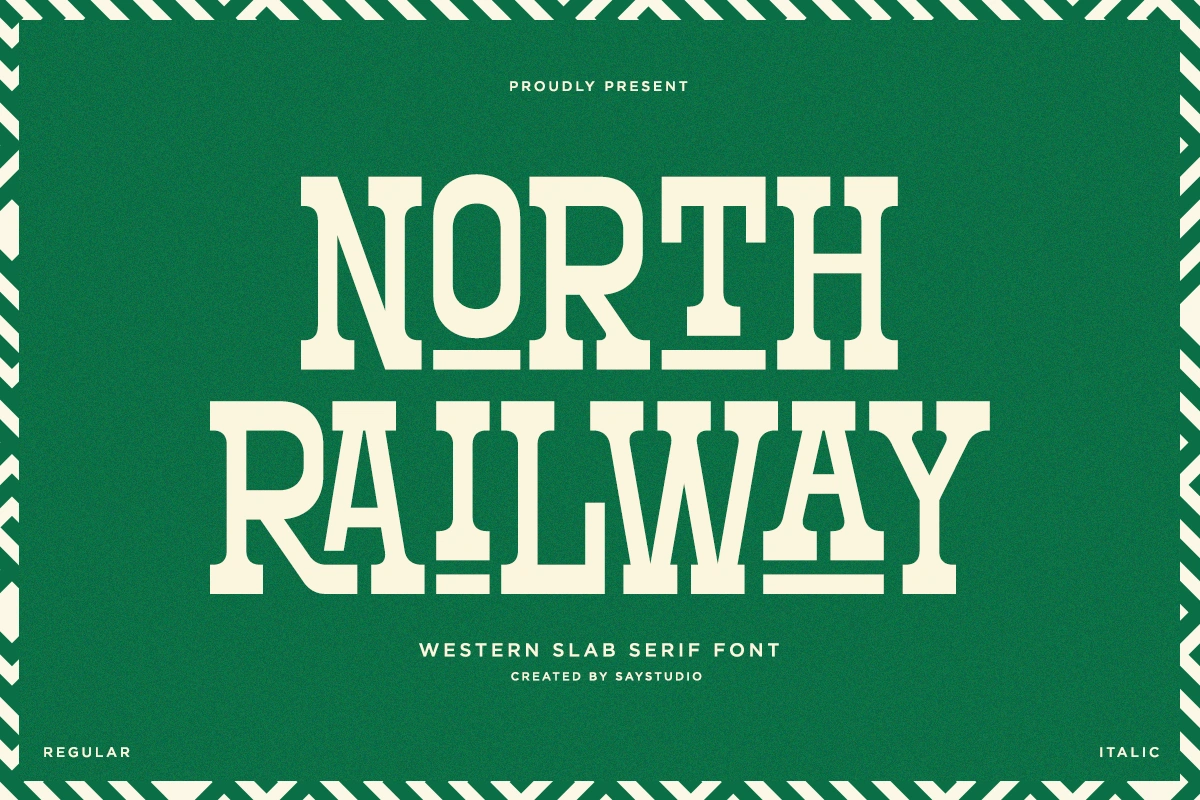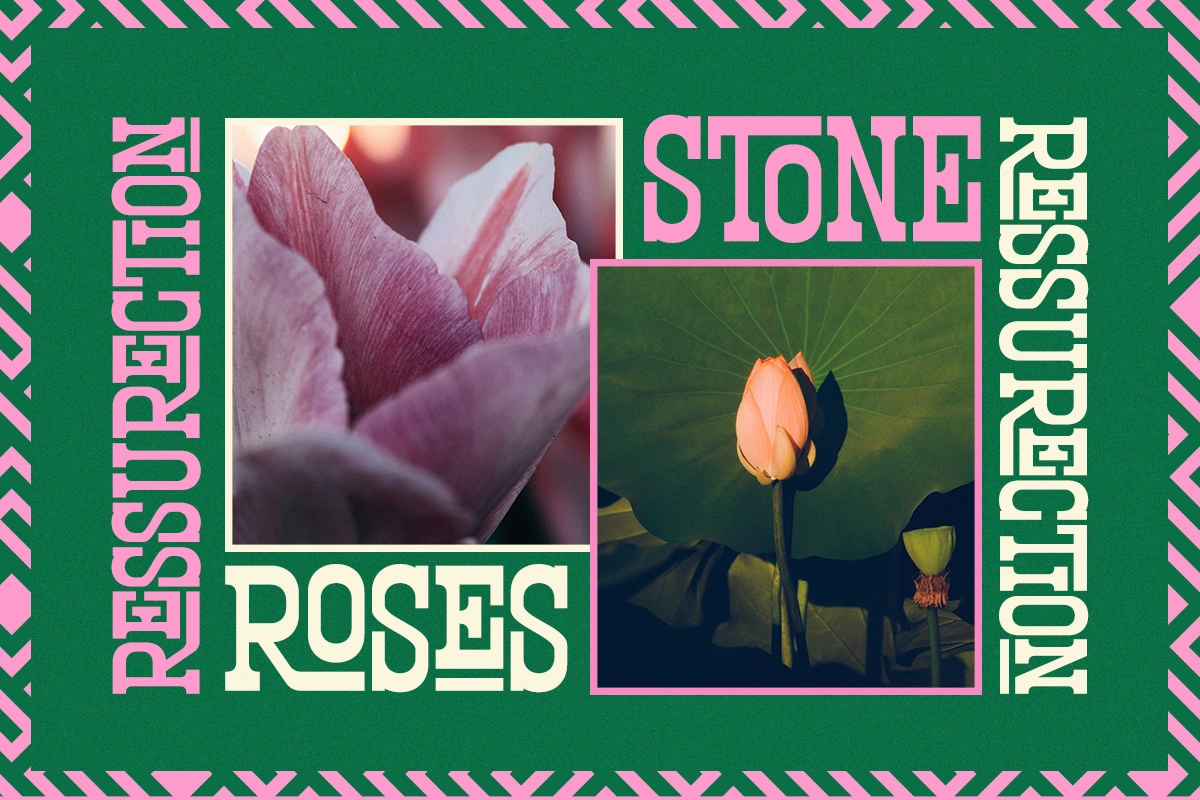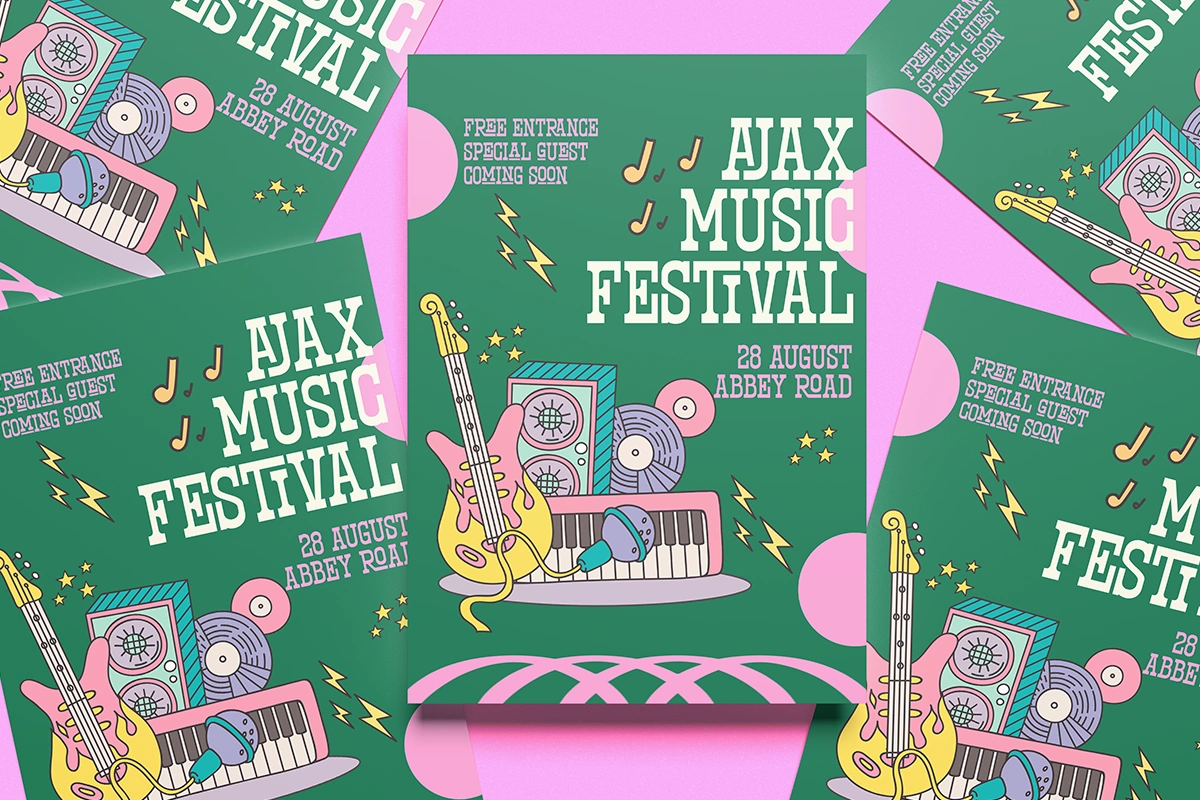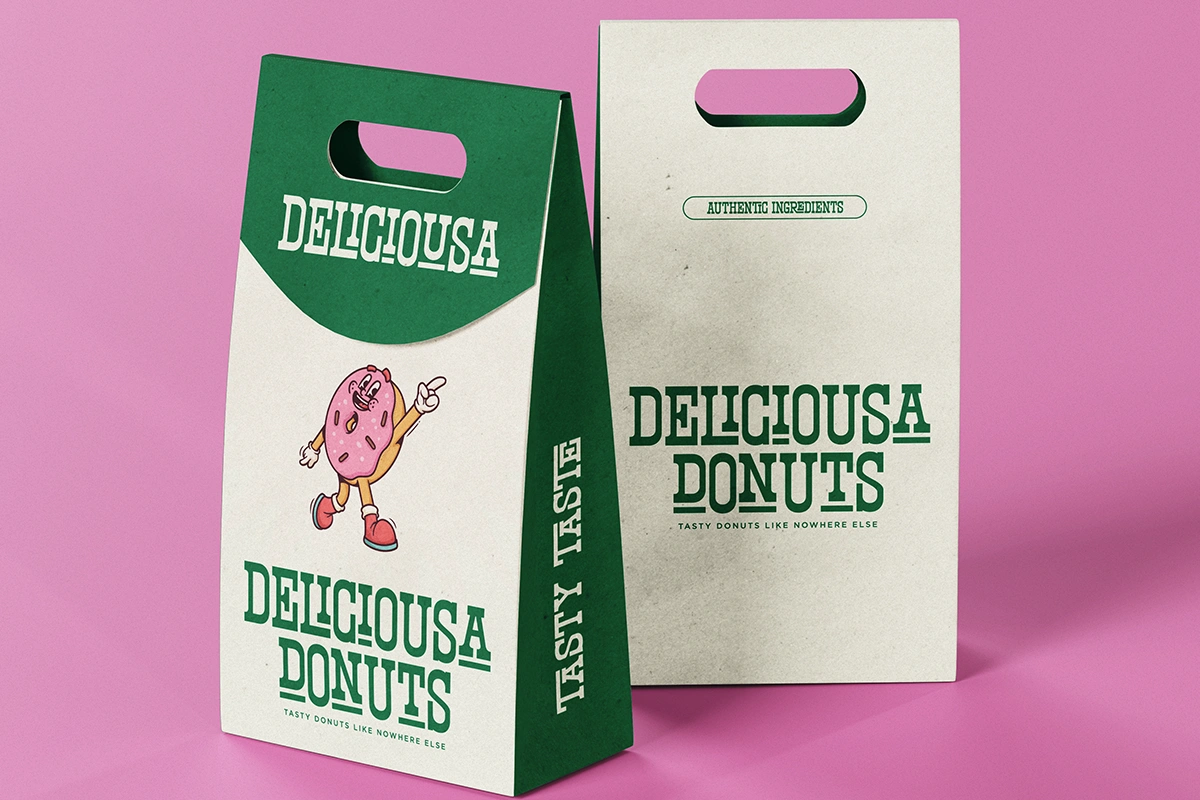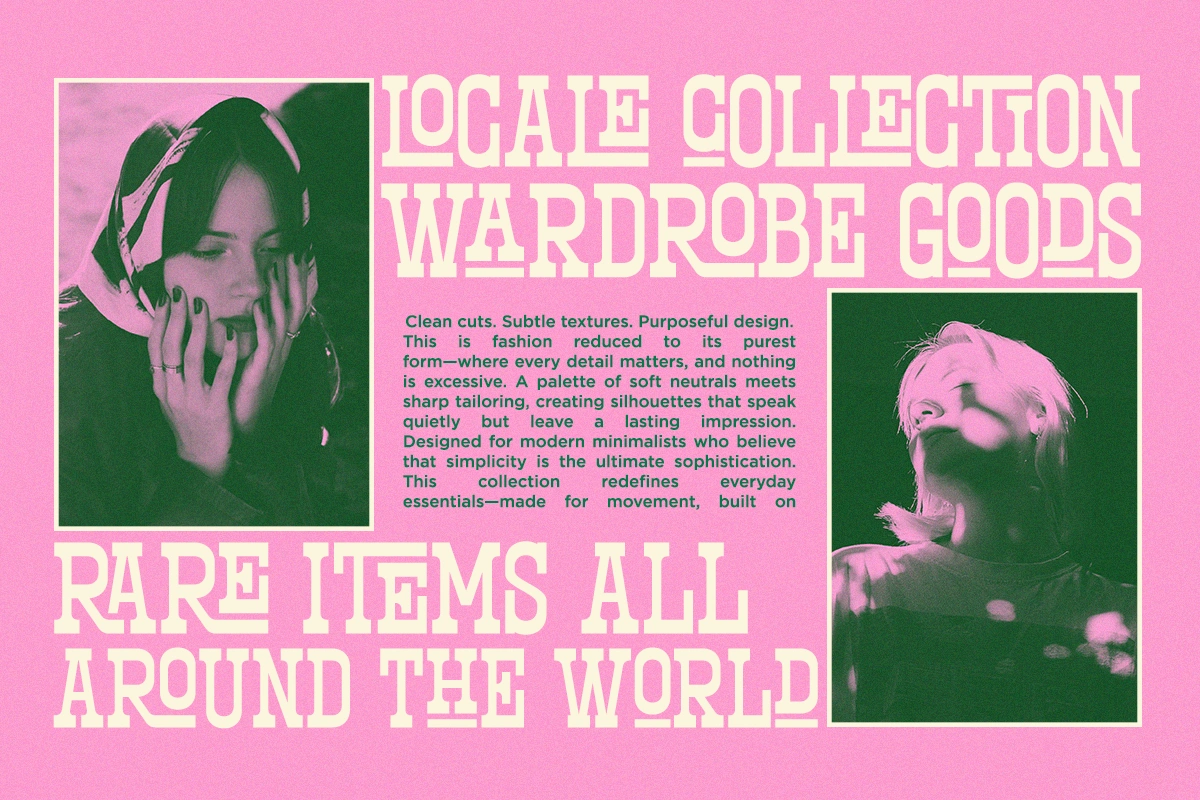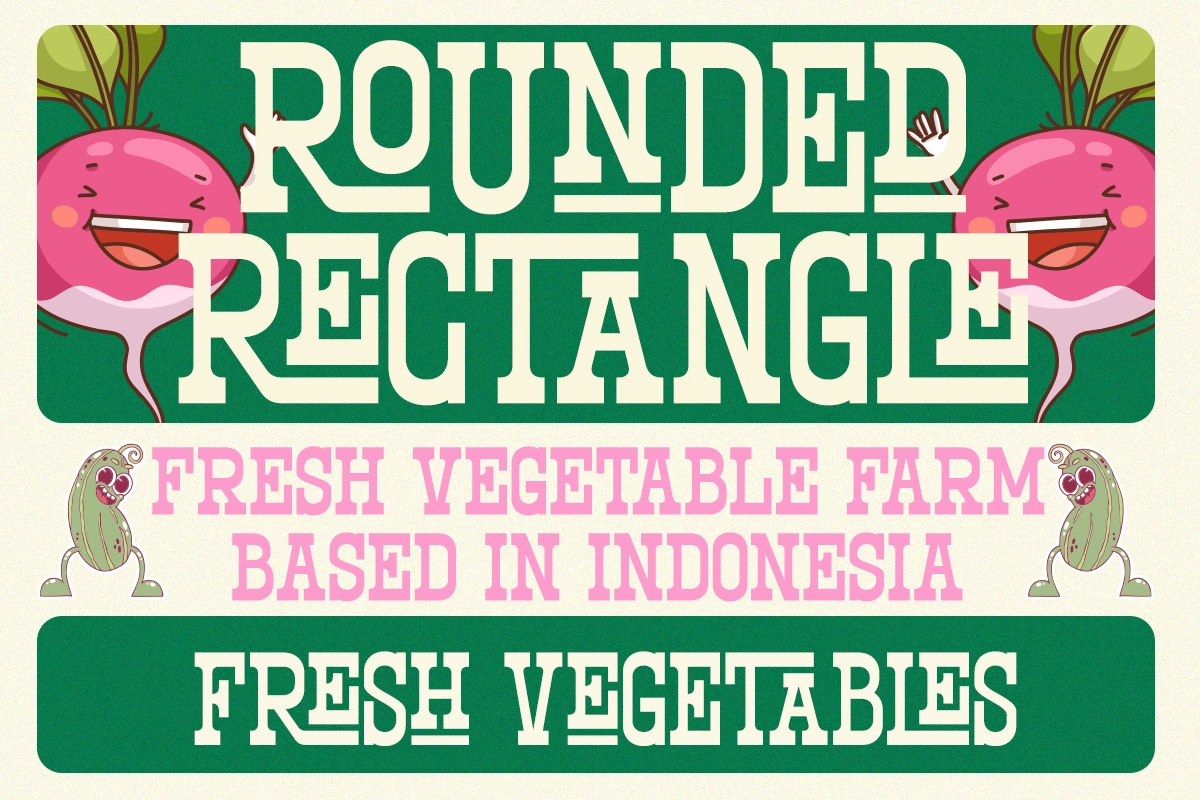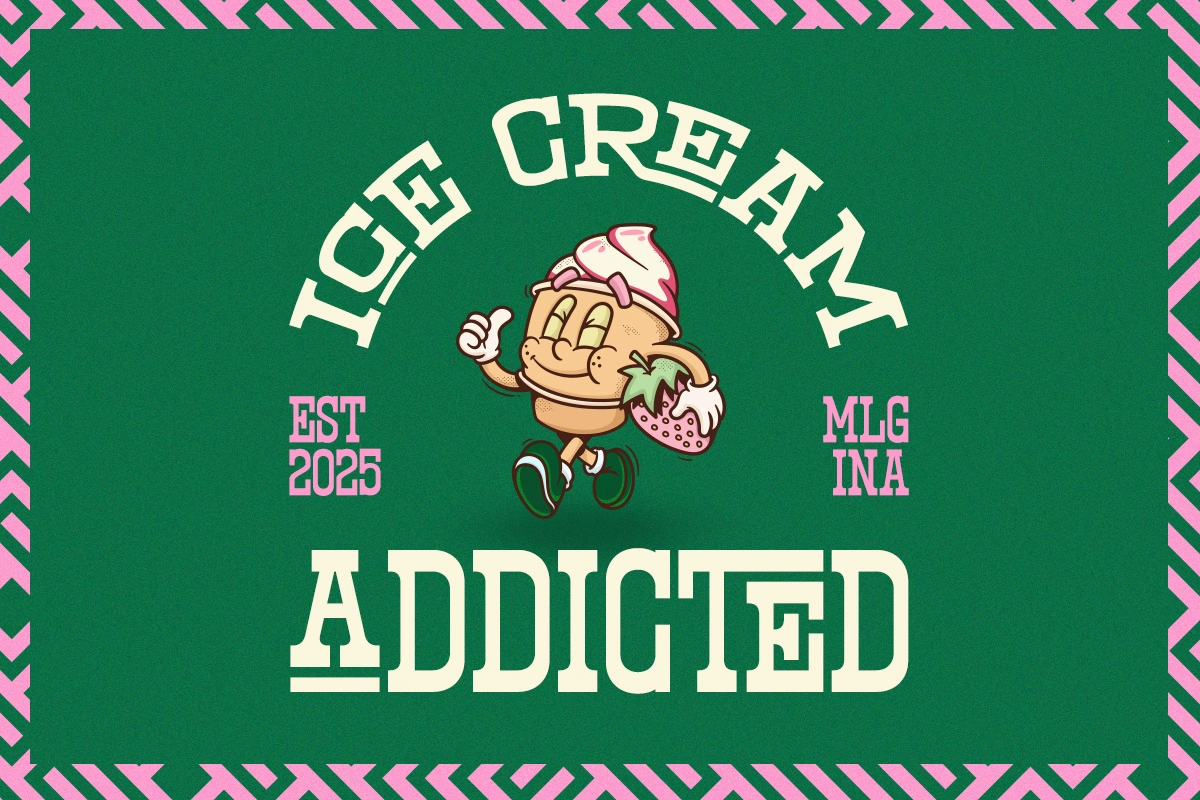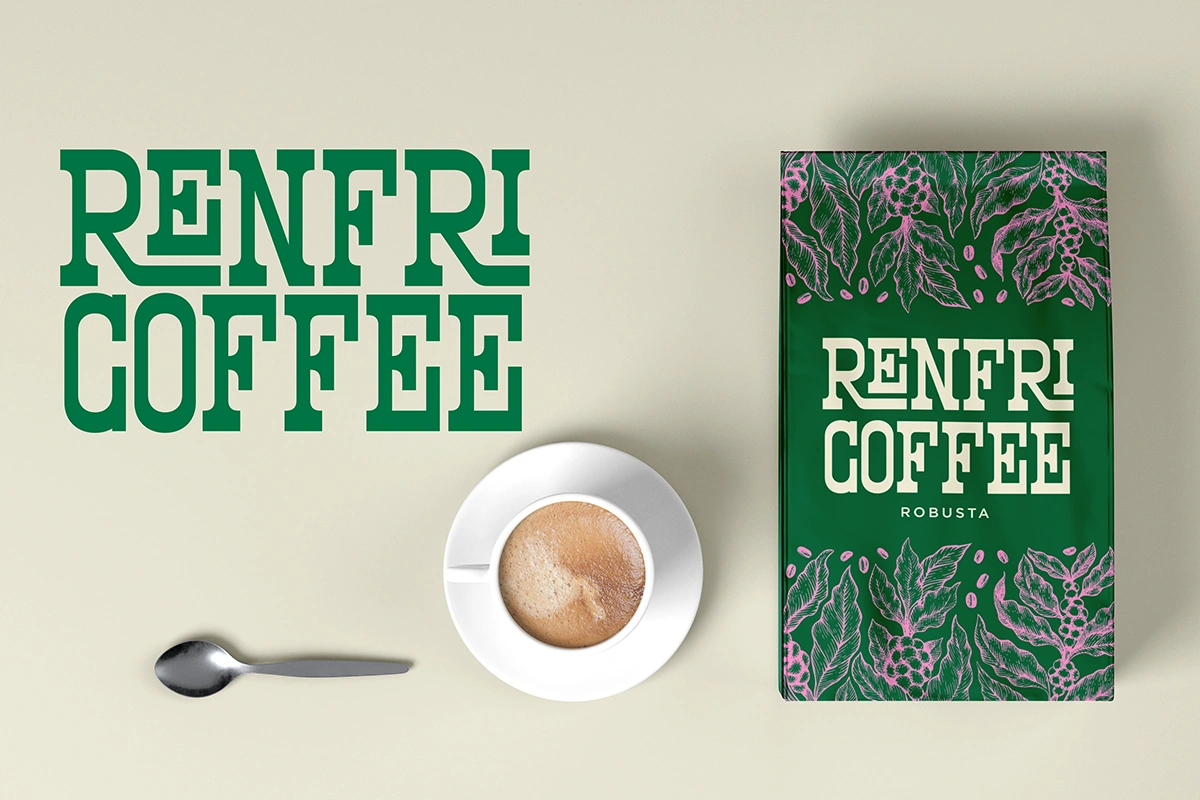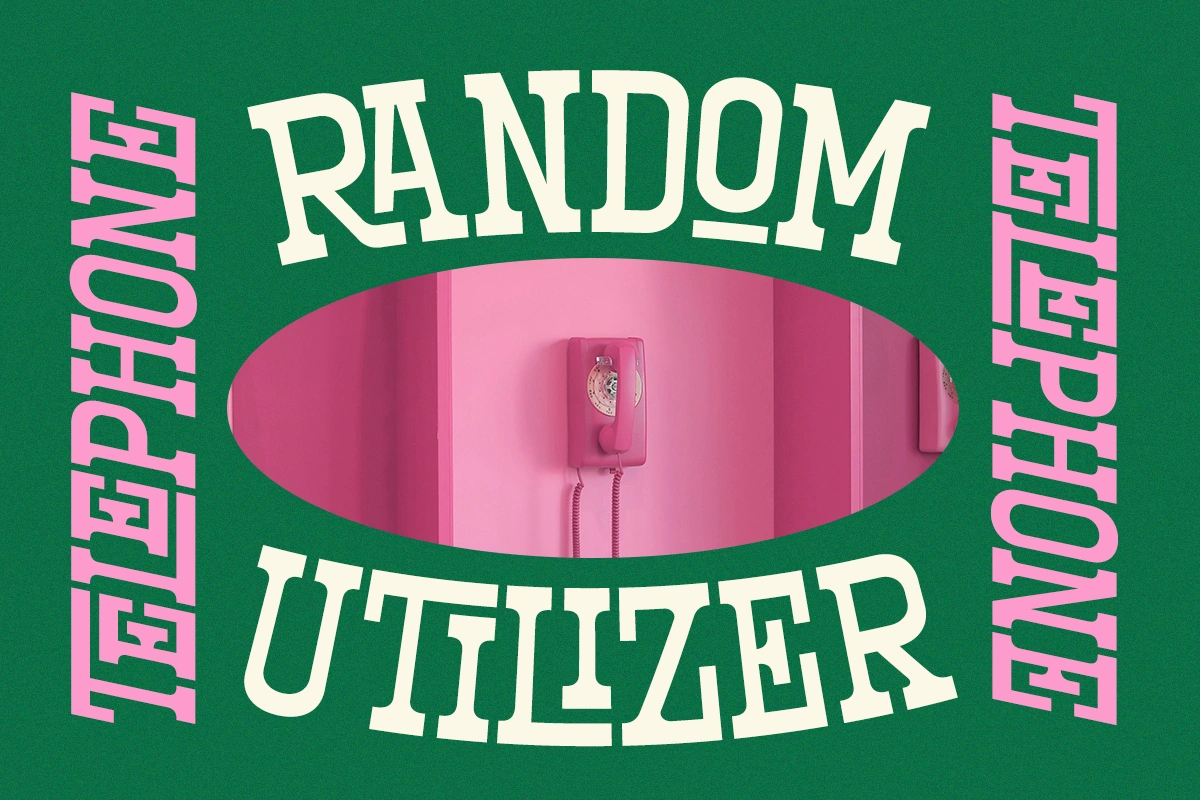
North Railway – Slab Serif Font
North Railway is a slab serif font inspired by the vibes of the 80s and 90s. This font is ideal for anyone looking to create projects with a retro feel that’s not too vintage. It’s perfect for designing stickers, t-shirts, food logos, and artwork featuring smiley themes or vintage cartoons. North Railway comes in Regular, Rounded, Condensed, and Oblique styles. It works well for both fun and formal projects, supports multiple languages, and easily adapts to your designs, making it great for effectively communicating your brand. What You'll Get : - North Railway Regular ( OTF,TTF,WOFF ) - North Railway Italic ( OTF,TTF,WOFF ) - Uppercase & Lowercase Set - Ligature Character Set - Multilingual Support - Number, and Punctuation